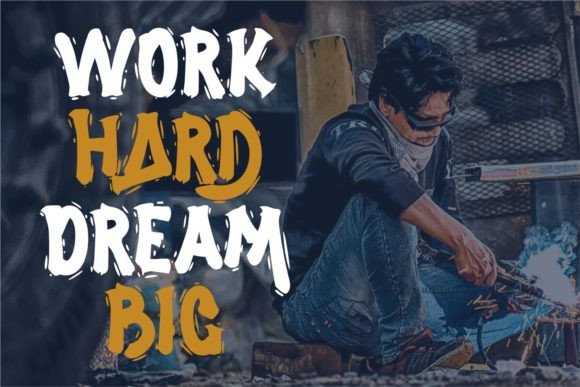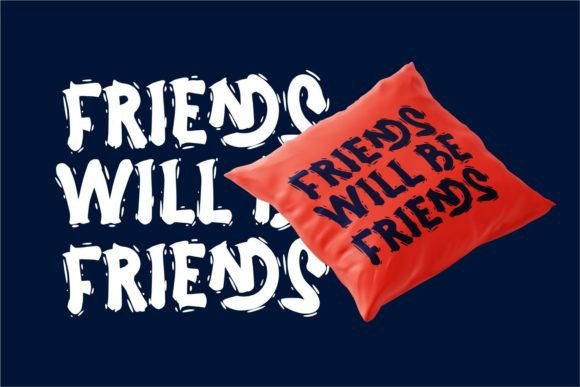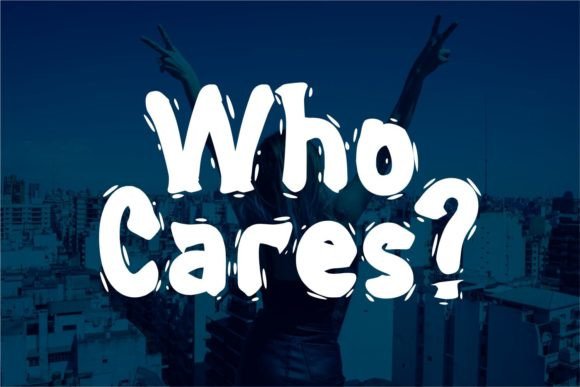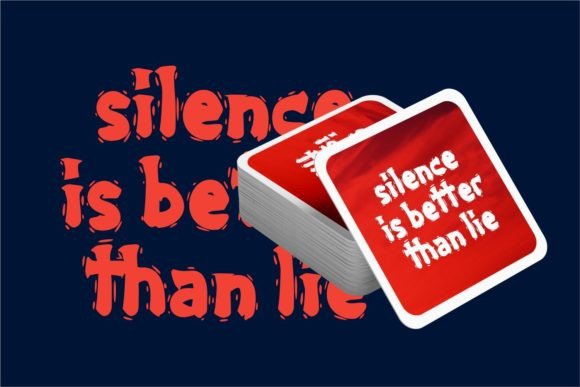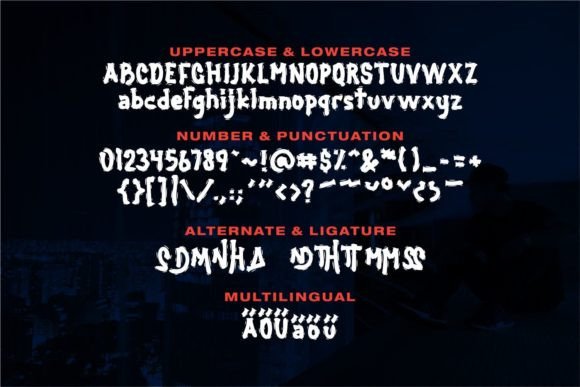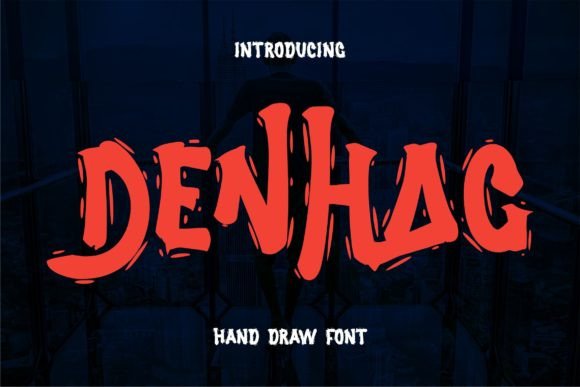
Unleash Your Creativity with Denhag Font: A Modern Display Font for Designers and Crafters
Are you tired of using the same old fonts for your design projects? Look no further! Denhag Font is here to revolutionize your creative process with its cool and modern display style. This fun and unique font is perfect for designers and crafters who want to add a touch of personality to their work. In this article, we’ll dive into the features and benefits of Denhag Font, and explore how it can elevate your design ideas to the next level.
A Font that’s Full of Character
Denhag Font is a modern display font that’s designed to make a statement. Its fun and unique style is perfect for a wide range of design projects, from branding and advertising to packaging and digital media. With Denhag Font, you can add a touch of whimsy and personality to your designs, setting them apart from the crowd.
One of the standout features of Denhag Font is its PUA (Private Use Area) encoding. This means that you can access all of the glyphs and swashes with ease, giving you complete creative control over your designs. With PUA encoding, you can easily insert special characters, ligatures, and other unique elements that will take your designs to the next level.
Denhag Font is incredibly versatile, making it suitable for a wide pool of design ideas. Whether you’re working on a logo, brochure, website, or social media graphics, this font is sure to impress. Here are just a few ideas to get you started:
- Create eye-catching headlines and titles for your blog or website
- Design stunning logos and branding materials for your business or clients
- Develop unique and engaging social media graphics that will make your followers smile
- Produce beautiful packaging designs that will make your products stand out on store shelves
Why Choose Denhag Font?
So why should you choose Denhag Font for your next design project? Here are just a few reasons:
- Unique and modern style: Denhag Font has a fresh and contemporary look that’s sure to turn heads.
- Highly versatile: This font is suitable for a wide range of design projects and applications.
- Easy to use: With PUA encoding, you can access all of the glyphs and swashes with ease.
- PUA encoded: Get creative with special characters, ligatures, and other unique elements.
Tips for Using Denhag Font
To get the most out of Denhag Font, here are a few tips to keep in mind:
- Experiment with different sizes and colors: Denhag Font looks great in a variety of sizes and colors, so don’t be afraid to get creative.
- Pair it with other fonts: Try pairing Denhag Font with other fonts to create a unique and interesting contrast.
- Use it for headlines and titles: Denhag Font is perfect for grabbing attention and making a statement.